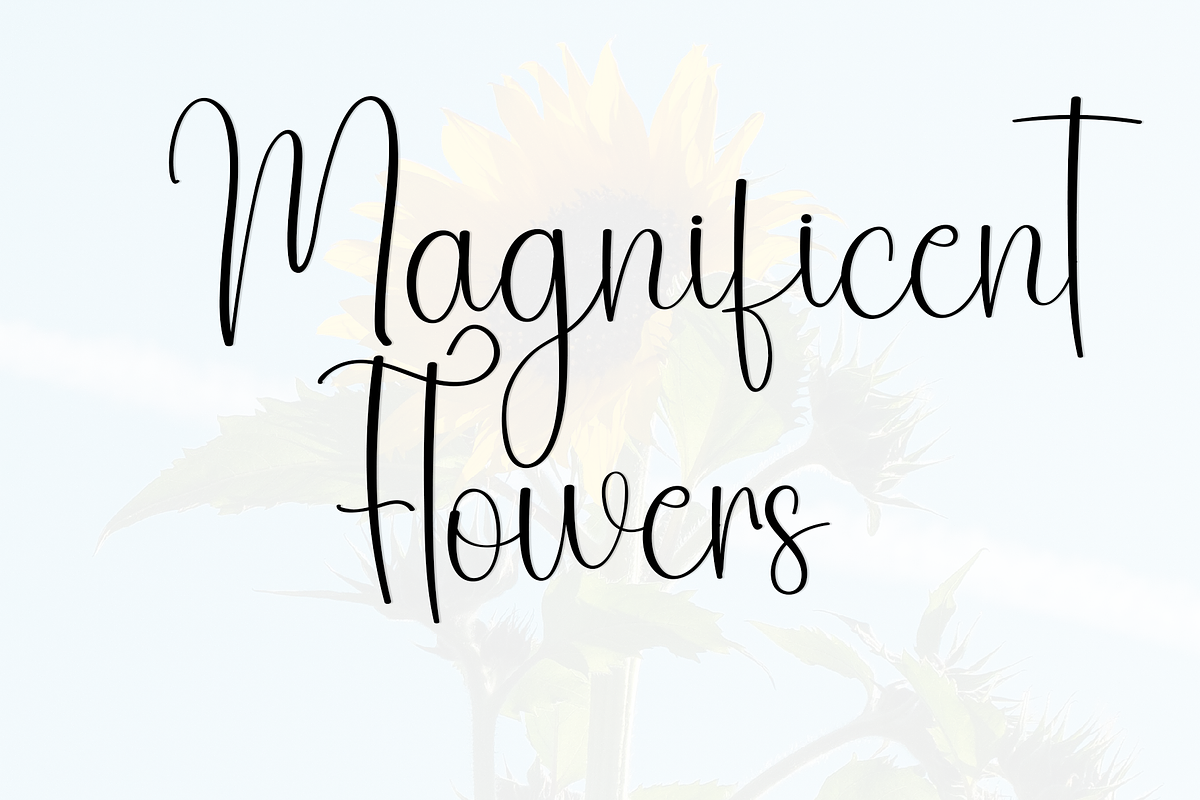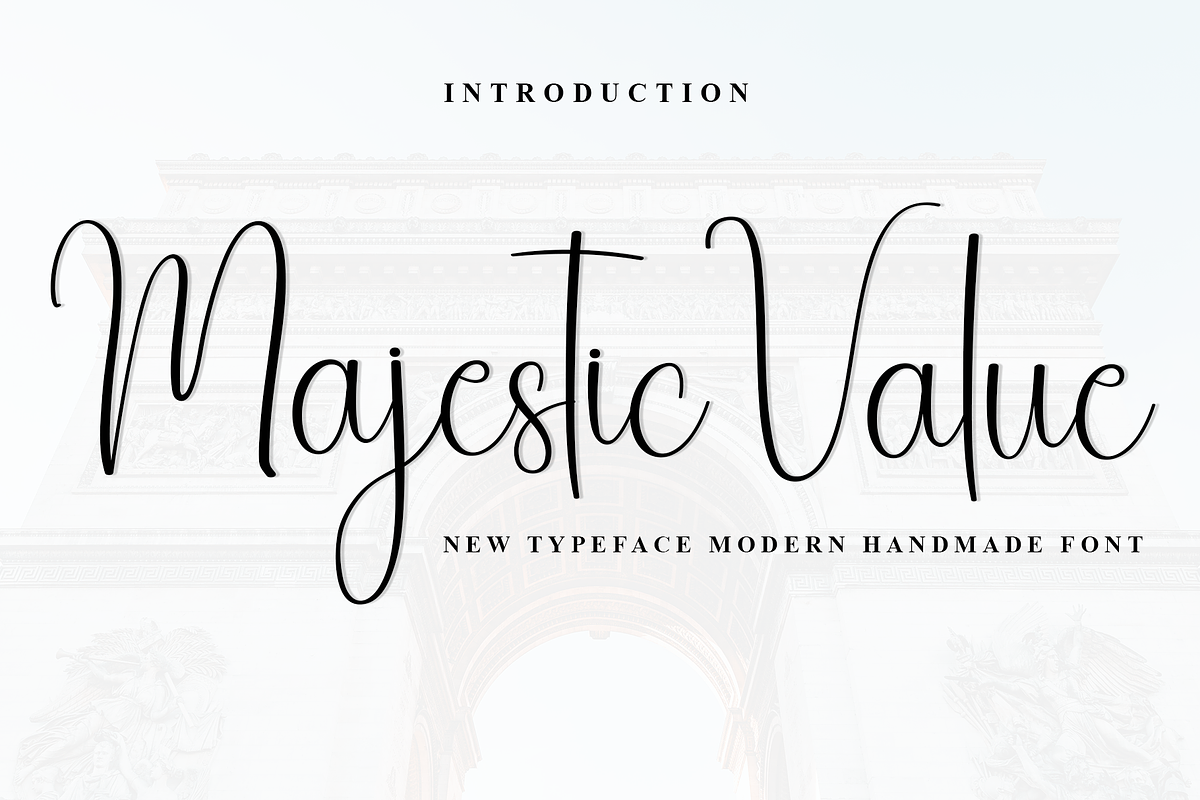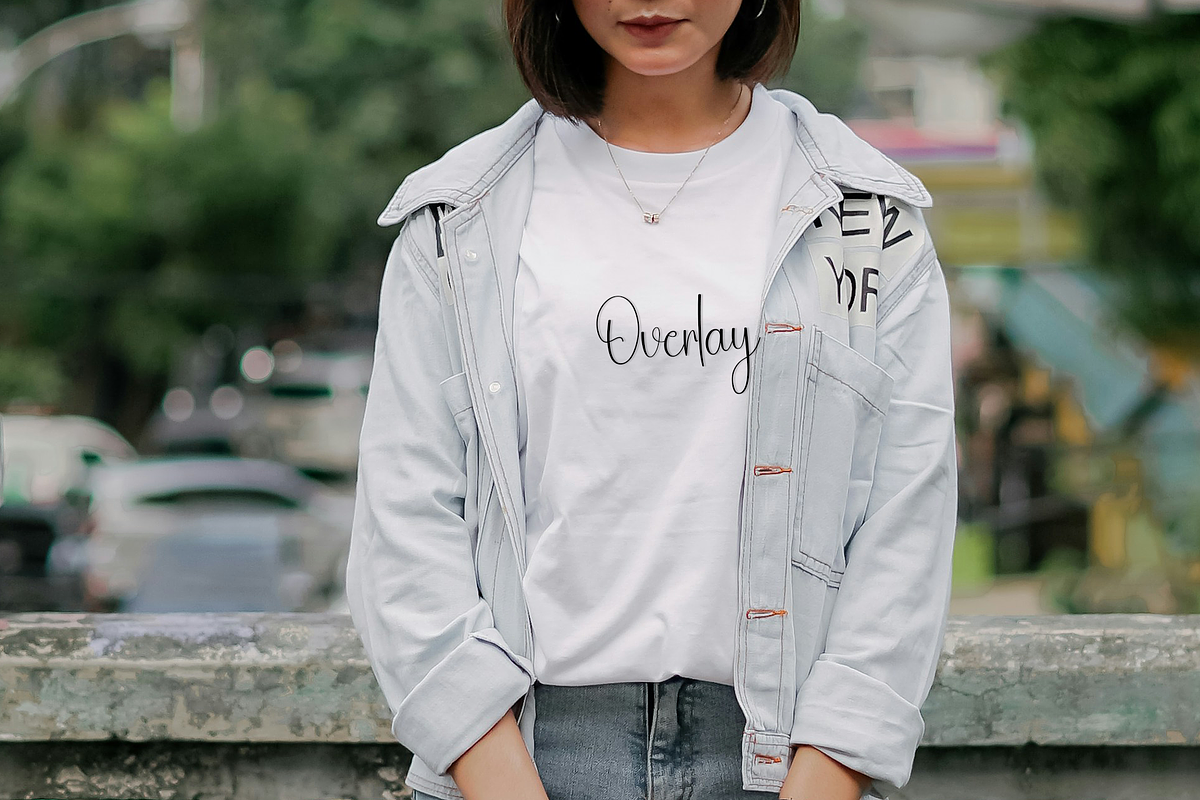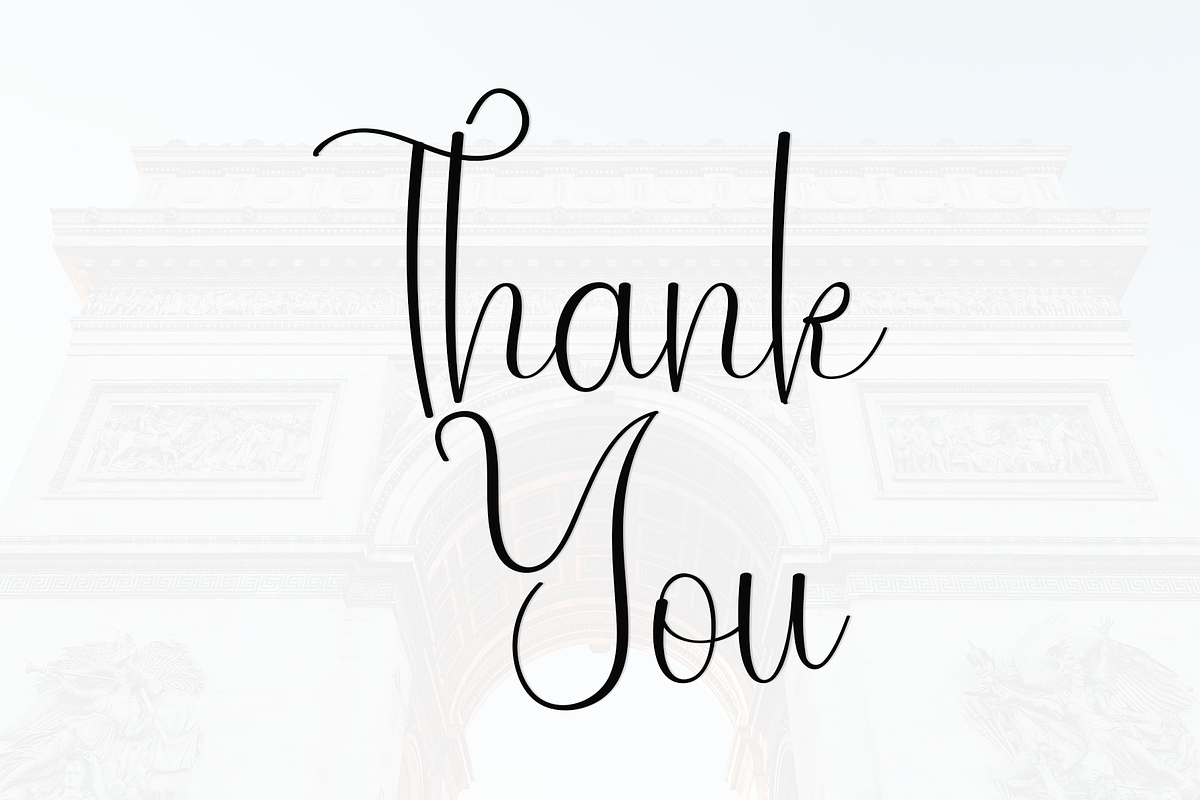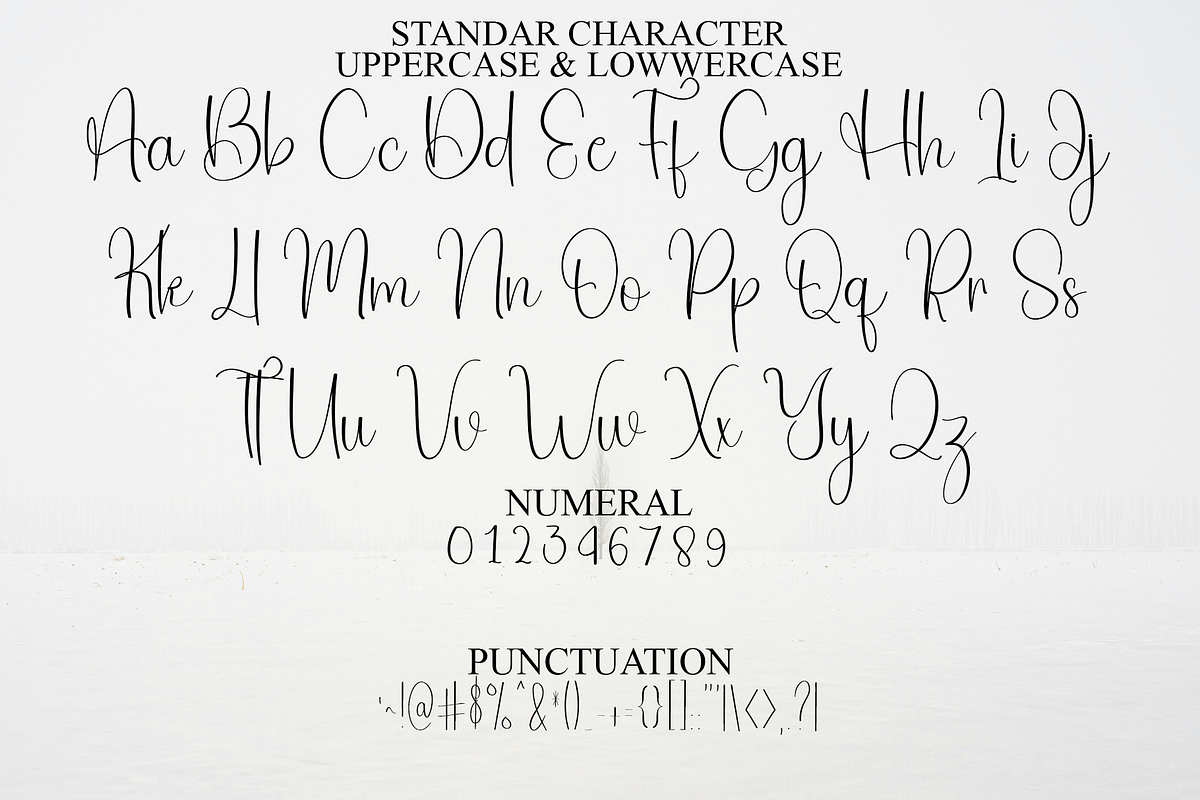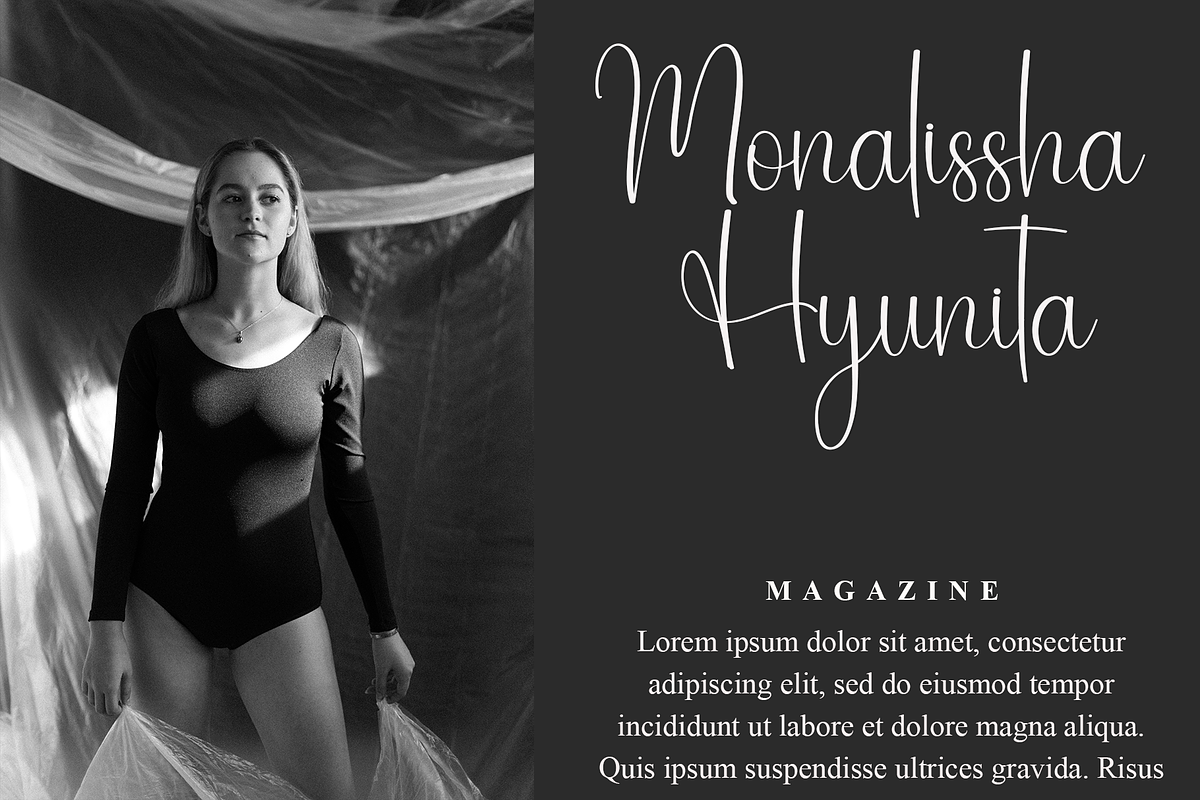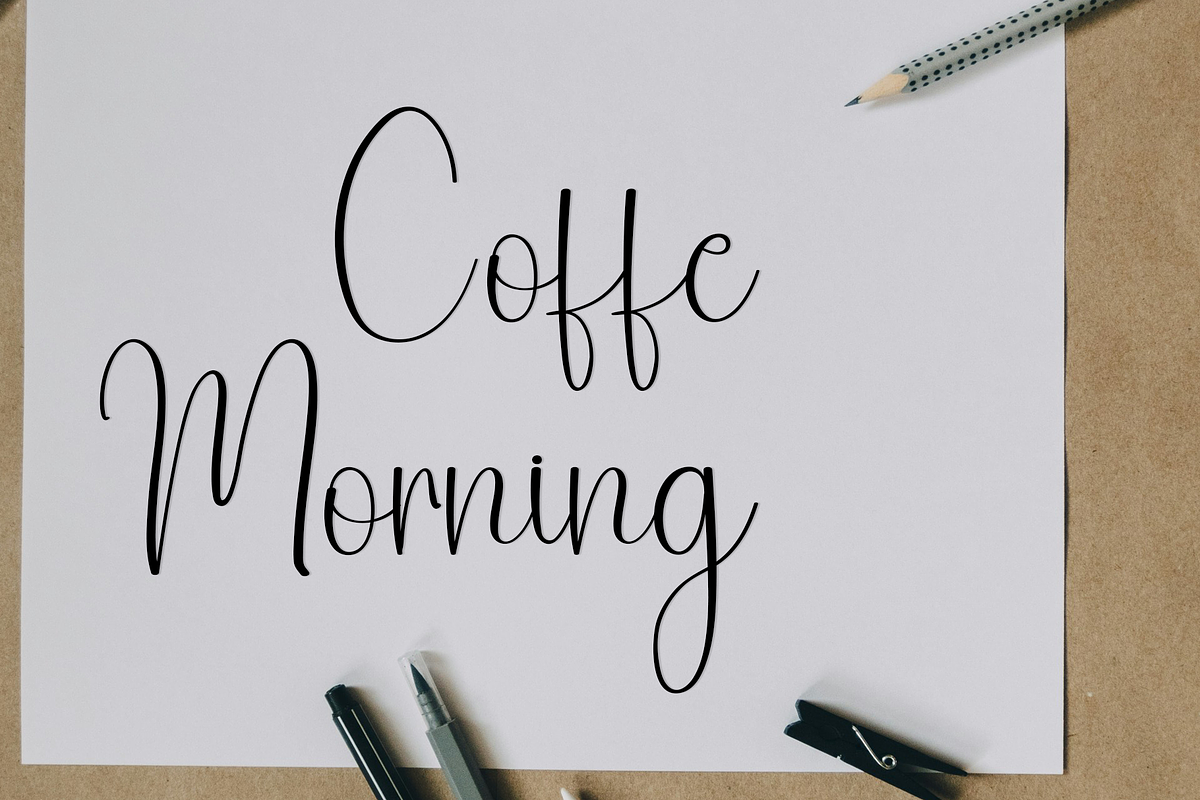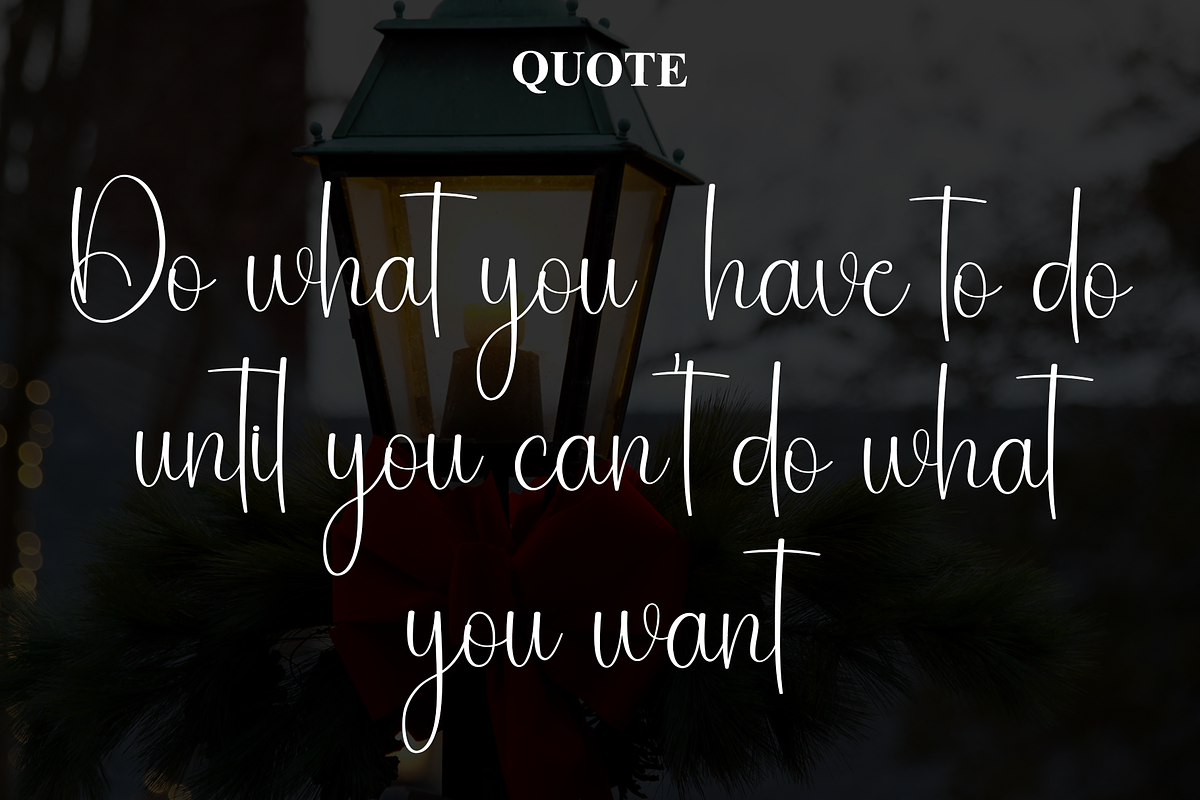
Majestic Value
Majestic Value is a festive and merry typeface that captures the spirit of the holiday season. With its decorative elements and whimsical flair, it adds a touch of enchantment to your designs. Perfect for greeting cards, gift tags, and holiday-themed projects, this font brings a cheerful and nostalgic ambiance to your words. Let your typography shine with the magic of Beautiful Font!